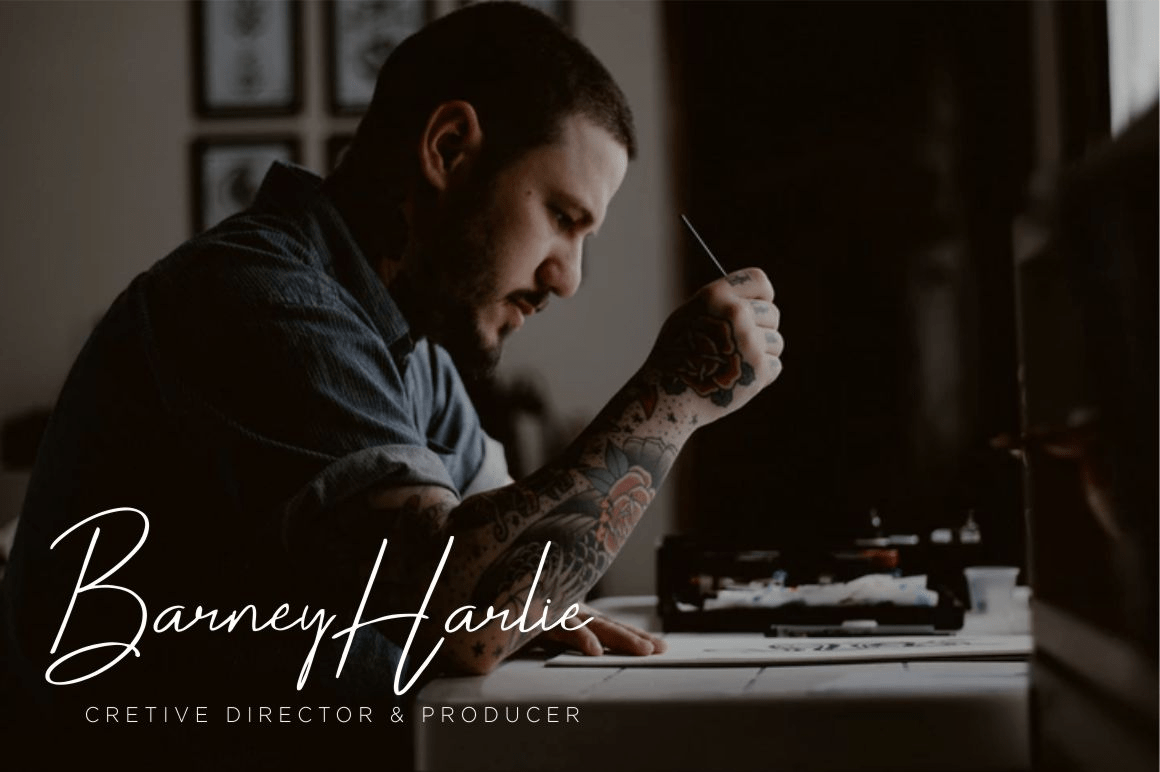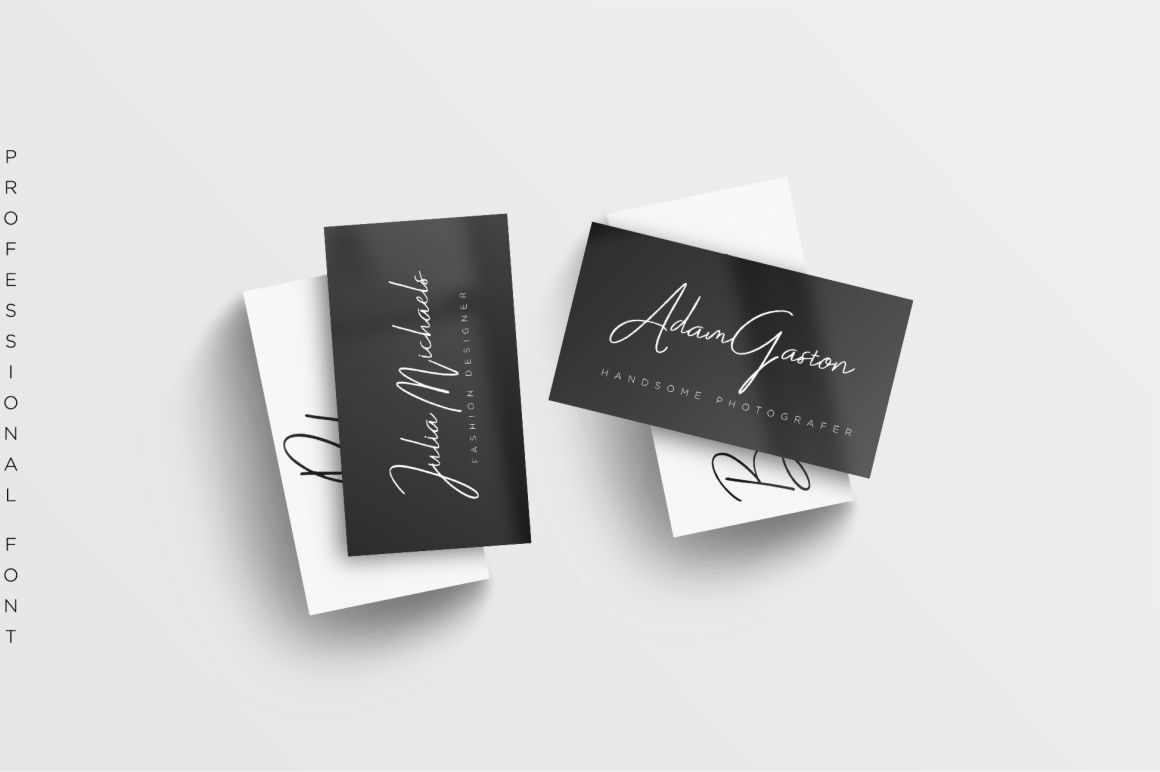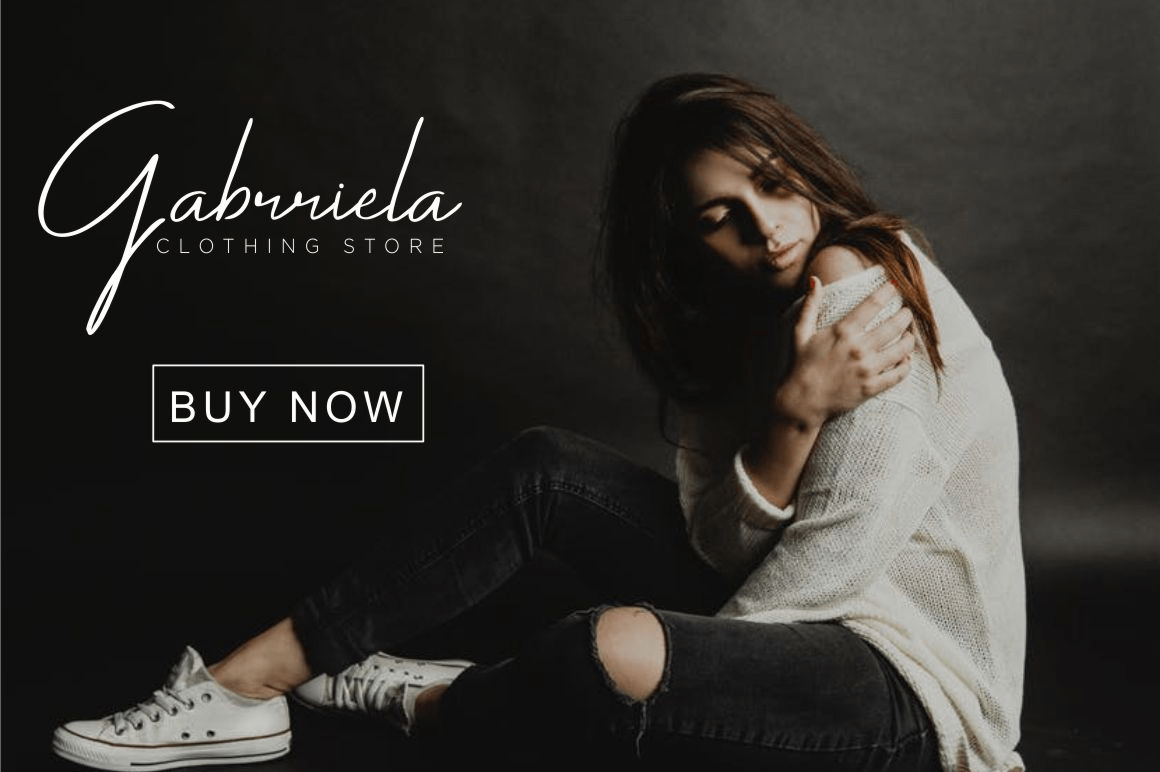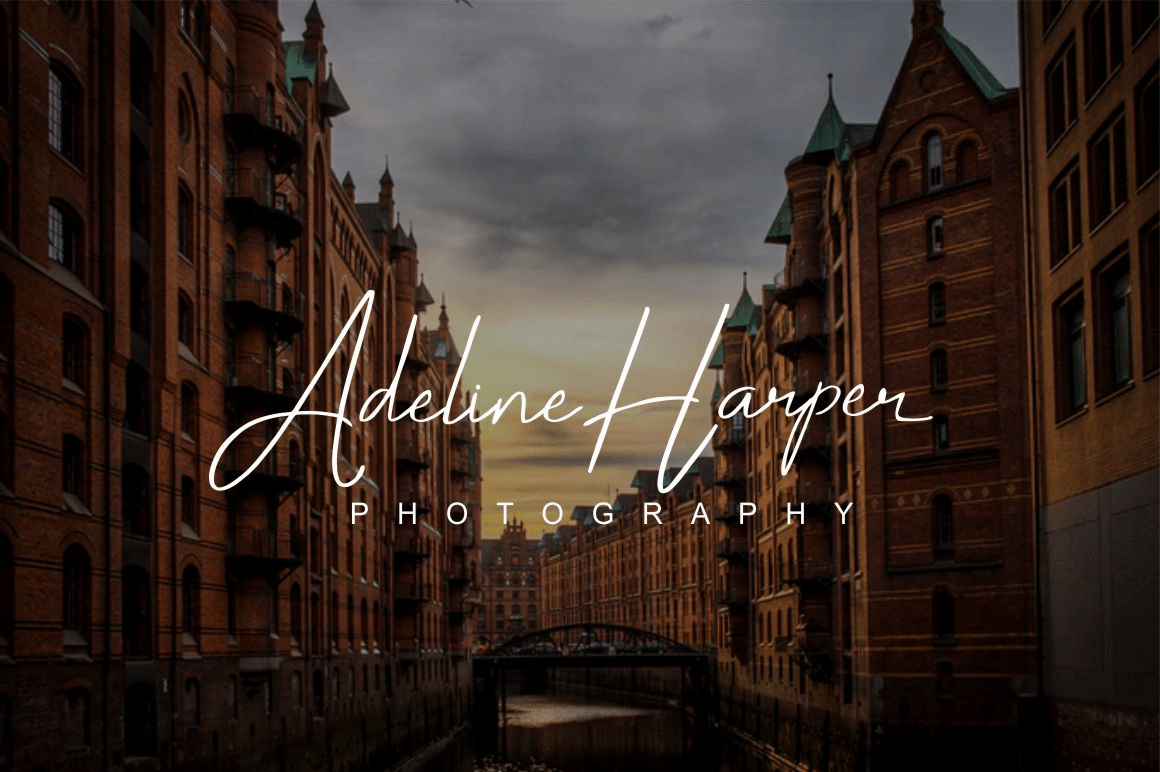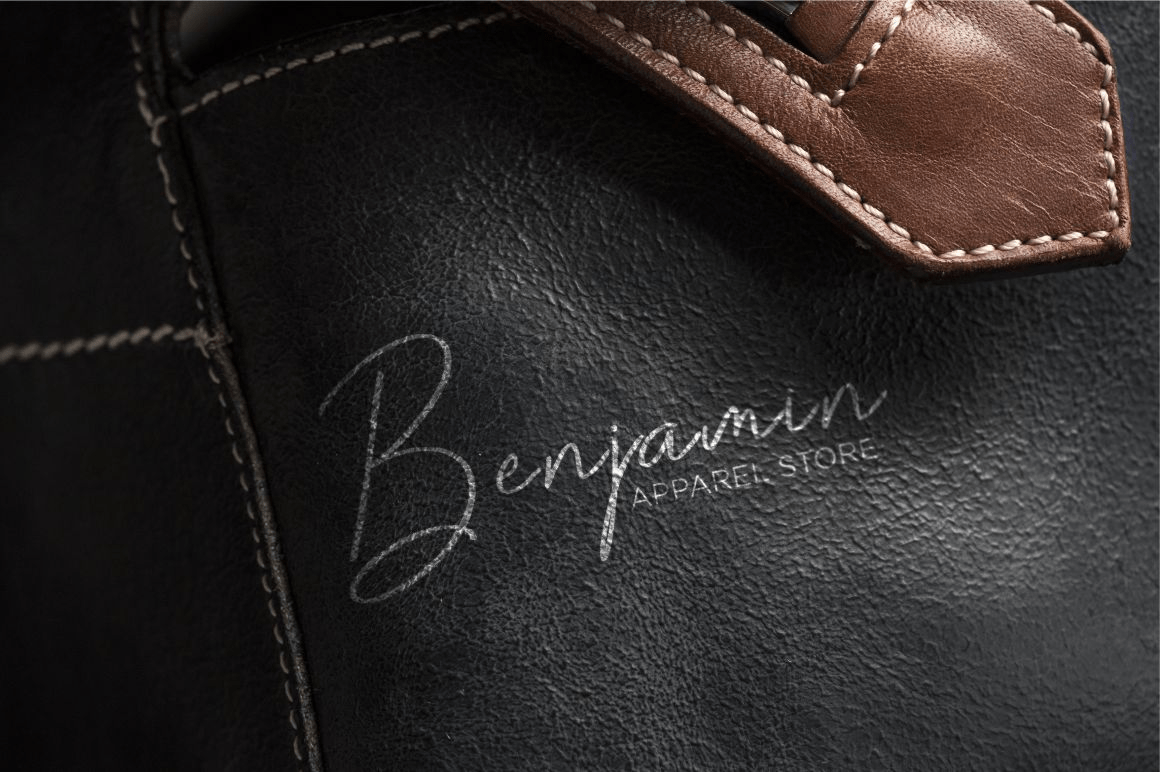
About Darcey Oliver
Darcey Oliver is a beautiful handmade brush font, perfect for adding some romance and charm to your designs. This script is strongest as a display or headline font. It\’s also great for logos, branding, fashion, book covers, t-shirts, Instagram posts,…